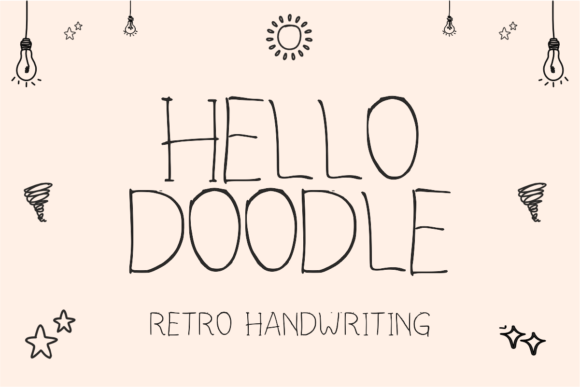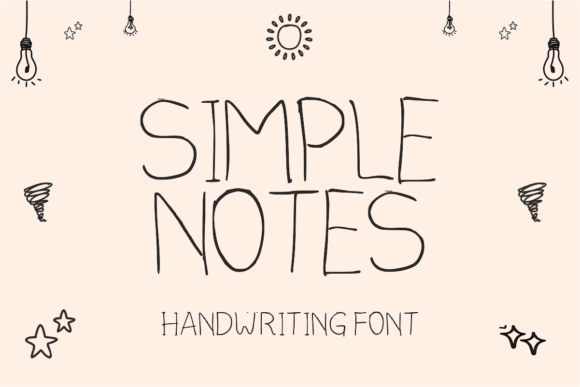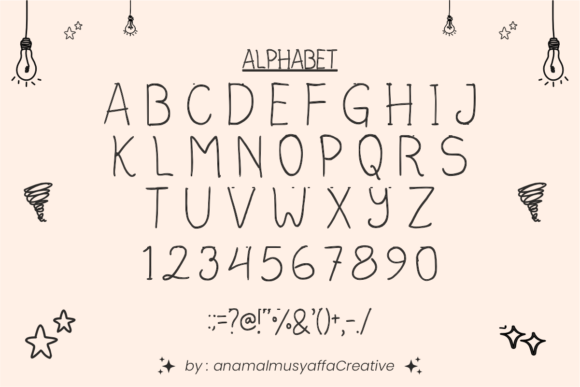
The Charm of Doodle Sprout Font: A Designer’s New Best Friend
I’ll never forget the time I was working on a project for a client who wanted a font that captured the essence of a bygone era. I had spent hours scouring the internet for the perfect typeface, but nothing seemed quite right. That was until I stumbled upon Doodle Sprout Font. This minimalist Retro Handwriting Font has since become a staple in my design toolkit, and I’m excited to share its charm with you.
A Personal Review: What I Love About Doodle Sprout
Here’s what makes Doodle Sprout Font a standout:
- ✨ Clean and Whimsical Design: Doodle Sprout’s thin, simple, monoline strokes and upright, all-caps structure give it a unique, retro minimalist vibe.
- ✅ Ease of Use: The font is incredibly versatile and works well in various design contexts, from planner stickers to artistic blog headers.
- 💡 Perfect for Adding a Personal Touch: Doodle Sprout’s casual, hand-sketched aesthetic adds a subtle, personal touch to any design project.
While Doodle Sprout Font is an excellent choice for many projects, there are a few things to keep in mind:
- ⚠️ Limited Character Set: As with any font, there may be limitations to the character set, so be sure to check for special characters or glyphs.
- 🤔 Legibility at Small Sizes: While Doodle Sprout is generally clear and legible, it may not be the best choice for very small font sizes or body text.
The Designer Inspiration Behind Doodle Sprout
Doodle Sprout Font was inspired by the clean, whimsical lines of a sketchpad or journal entry from a bygone era. The designer aimed to capture the essence of casual, thin-lined penmanship with a vintage twist, perfect for adding a subtle, personal touch to design projects.
| Font Name | Doodle Sprout Font |
| What is Doodle Sprout Font best used for? | Doodle Sprout Font is ideal for projects that require a light, simple, and nostalgic look, such as planner stickers, artistic blog headers, casual stationery, and indie music packaging. |
| Is Doodle Sprout Font suitable for body text? | While Doodle Sprout Font is clear and legible, it may not be the best choice for body text due to its thin lines and simple design. It’s better suited for headings, titles, or short paragraphs. |
| Is Doodle Sprout Font available in different styles or weights? | Doodle Sprout Font is a single-weight font, but it does offer some OpenType features, such as ligatures and stylistic alternates, to add visual interest to your text. |